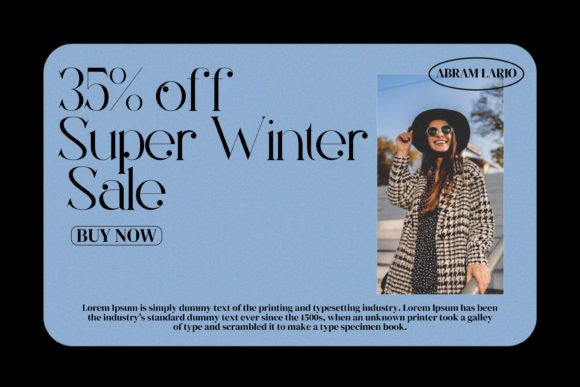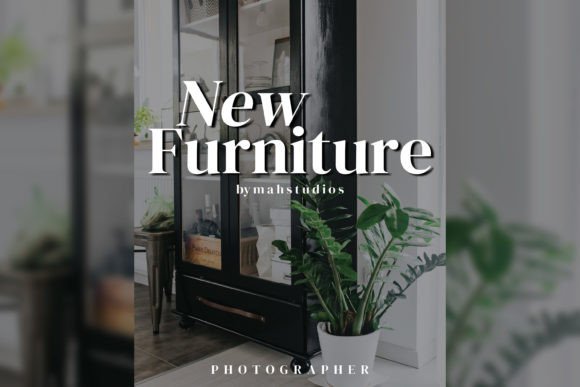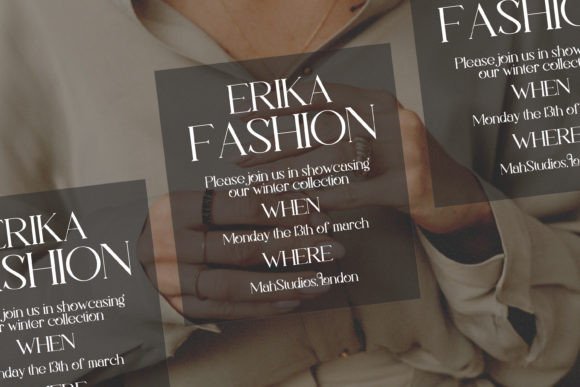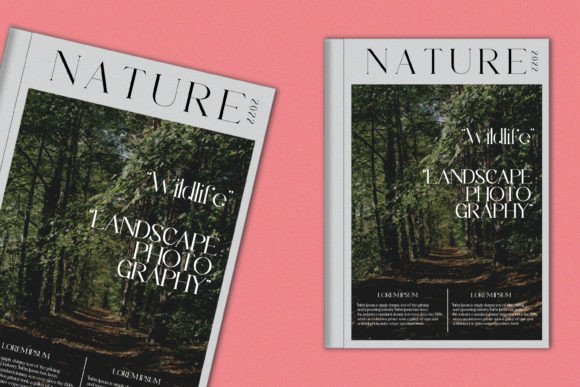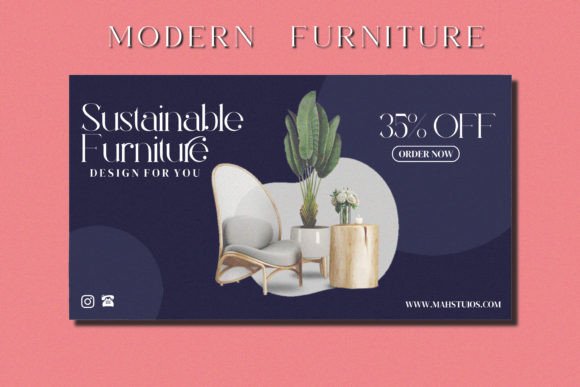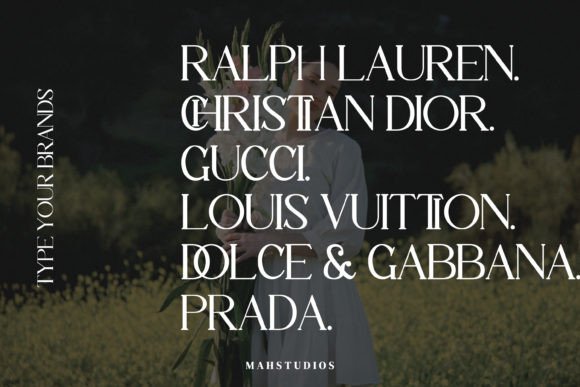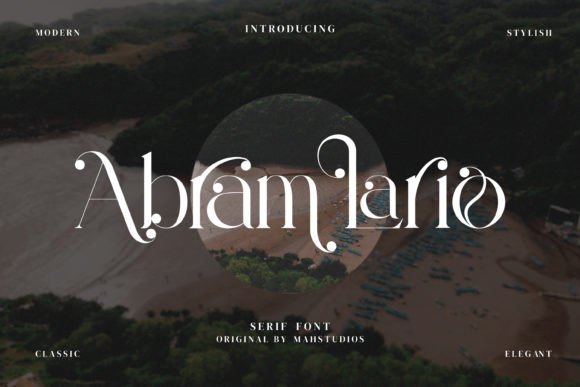
The Elegance of Abram Lario Font: A Designer’s New Best Friend
I still remember the time I was working on a luxury branding project for a high-end fashion client. I had spent hours perfecting the logo design, but something was missing. The font I had chosen just didn’t exude the level of sophistication and elegance that the brand required. That’s when I stumbled upon Abram Lario Font, and it completely transformed my design. In this article, I’ll share my experience with Abram Lario, its features, and how to make the most of it in your designs.
An Honest Review of Abram Lario Font
Abram Lario Font has quickly become one of my go-to fonts for elegant and refined designs. Here’s what I love about it:
- ✨ Classy and stylish serif design that exudes elegance and refinement
- ✅ PUA encoded for easy access to all glyphs and ligatures
- ⚡️ Highly versatile and suitable for a wide range of design projects, from luxury branding to wedding invitations
While Abram Lario Font is an excellent choice, there are a few minor quirks to be aware of:
- 🤔 Some users may find the font a bit too ornate for certain design projects
- ⚠️ Limited availability of language support, which may be a concern for designers working with non-English text
The Story Behind Abram Lario Font
Abram Lario Font was designed with the intention of creating a luxurious and elegant serif font that would cater to the needs of designers working on high-end branding and advertising projects. The font’s creator drew inspiration from classic serif fonts, while infusing it with a modern twist to make it suitable for a wide range of design applications.
| What is PUA encoding, and how does it benefit designers? | PUA (Private Use Area) encoding allows designers to access a wide range of glyphs and ligatures, making it easier to create visually appealing and unique designs. |
| Is Abram Lario Font suitable for body text? | While Abram Lario Font is an elegant and refined font, it may not be the best choice for body text due to its ornate nature. It’s better suited for headlines, titles, and other display text. |